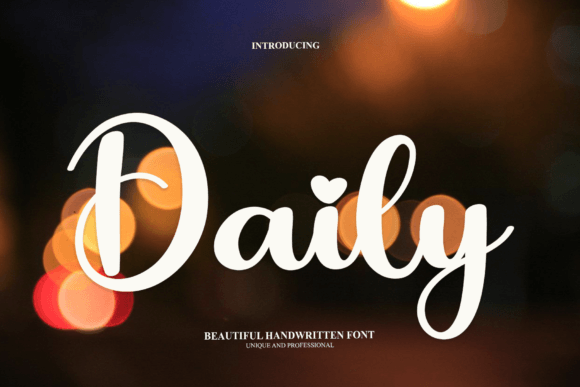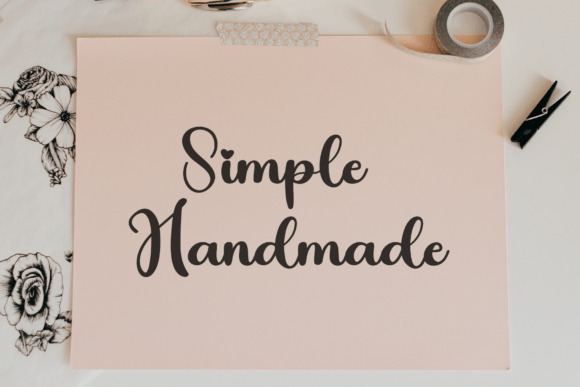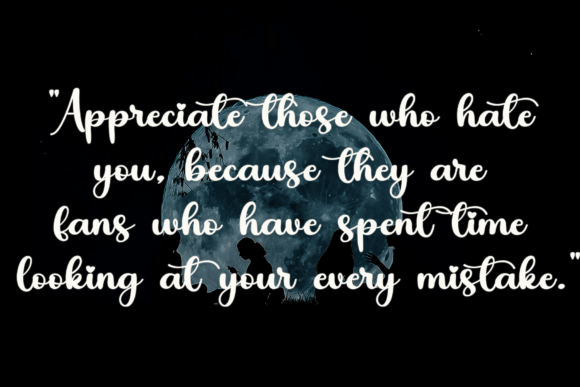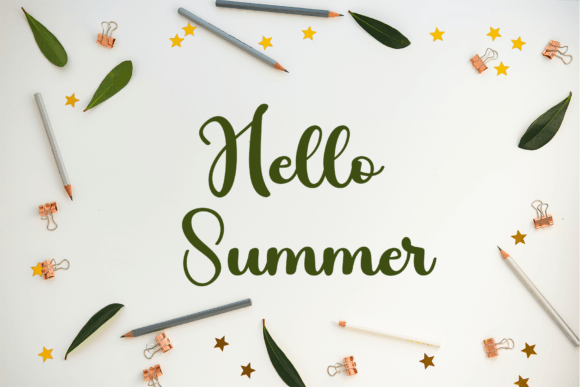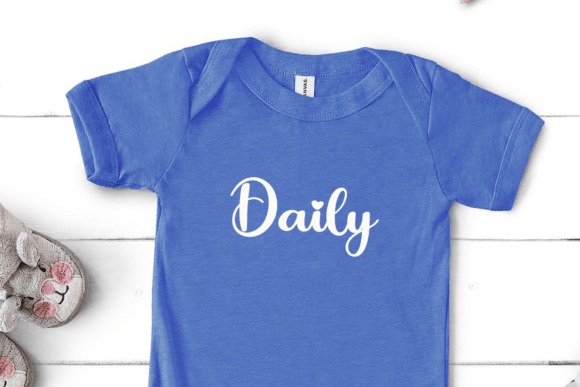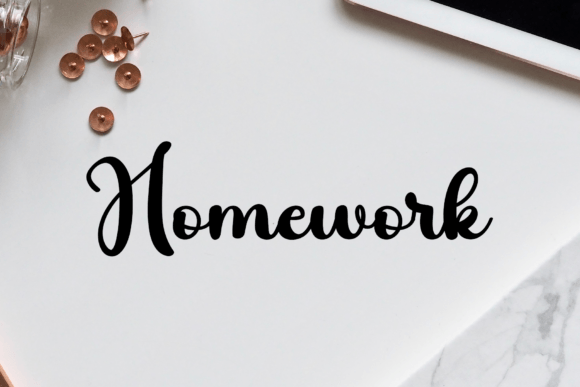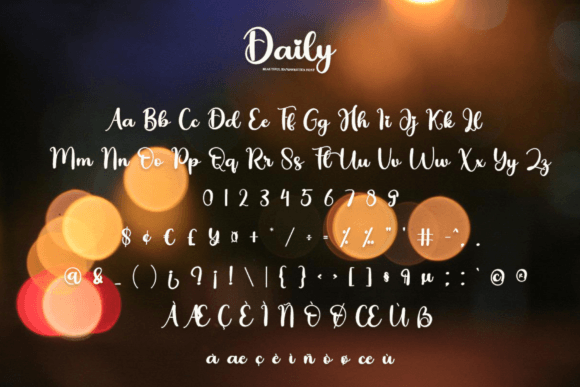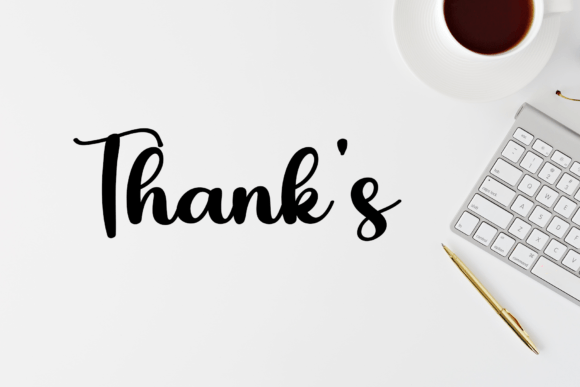
Daily Font
Introducing “Daily,” an elegant and feminine typeface designed for various headline applications. This versatile font is a perfect choice for a wide range of creative projects, including wedding stationery, invitations, florists’ branding, packaging, and social media posts. With its refined and graceful design, “Daily” adds a touch of sophistication and charm to your text.
The elegance and femininity of “Daily” make it a versatile choice for different design contexts. Whether you’re working on wedding invitations, creating a floral brand identity, or enhancing your social media presence, this font is crafted to bring a sense of refinement to your headlines.
Imagine “Daily” gracing your wedding stationery, where its elegant typeface creates a timeless and romantic feel. Picture it on florist branding, adding a touch of sophistication to your logo and packaging. Envision it becoming the signature font for your social media posts, creating a cohesive and feminine visual identity.
“Daily” is not just a font; it’s a design element that brings elegance and femininity to your projects. Its versatility allows it to shine in various applications, making it a valuable addition to your font collection.
Add “Daily” to your creative toolkit and experience how it effortlessly elevates your headlines. Let it be the elegant and feminine typeface that adds a touch of sophistication to your wedding stationery, invitations, branding, and more!